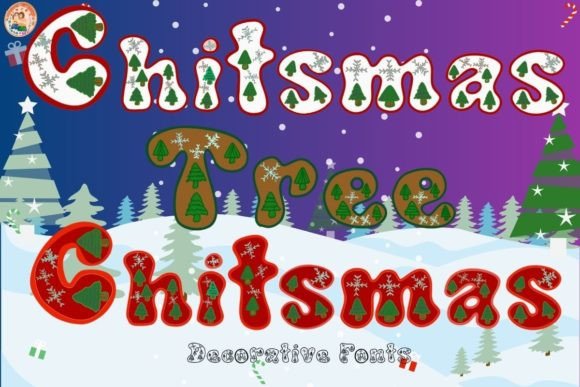
The Magic of Christmas Tree Font: A Designer’s Delight
I still remember the year I was tasked with designing a holiday card for a client’s family reunion. I had a vision of a festive, whimsical design, but I was struggling to find the perfect font to capture the essence of the season. That’s when I stumbled upon the Christmas Tree font, and it instantly became the star of my design. Each letter was intricately designed with charming Christmas trees, radiating a warmth and joy that perfectly complemented my client’s request.
An Honest Review: The Good and the Quirky
• ✨ The whimsical design of each letter, which instantly adds a festive touch to any project
• ✅ The font’s versatility, making it suitable for a wide range of applications, from holiday cards to seasonal crafts
• 🎉 The way it evokes a sense of nostalgia and holiday cheer, perfect for capturing the spirit of the season
• 🤔 The font may not be suitable for very formal or professional designs, as it’s quite playful and attention-grabbing
• ⚠️ Some letters may be a bit tricky to read, especially at smaller font sizes, due to the intricate design
The Story Behind Christmas Tree Font
The Christmas Tree font was designed by a talented type designer who wanted to capture the magic of the holiday season in a unique and playful way. Inspired by childhood memories of decorating Christmas trees and singing holiday songs, the designer created a font that would bring joy and festivity to any design project. The result is a delightful, decorative typeface that’s sure to become a favorite among designers and crafters alike.